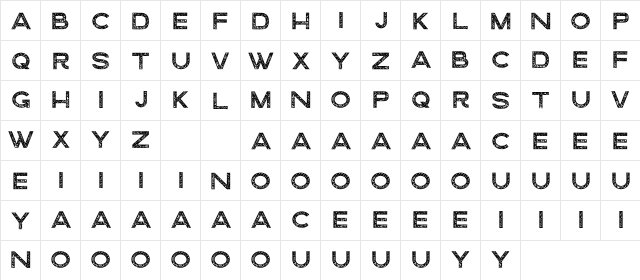
Loveolline Sans Ro F Regular
Design Context for Loveolline Sans Ro F Typeface
Loveolline Sans Ro F is a composed and adaptable typeface that performs quietly and consistently across a wide range of design contexts.